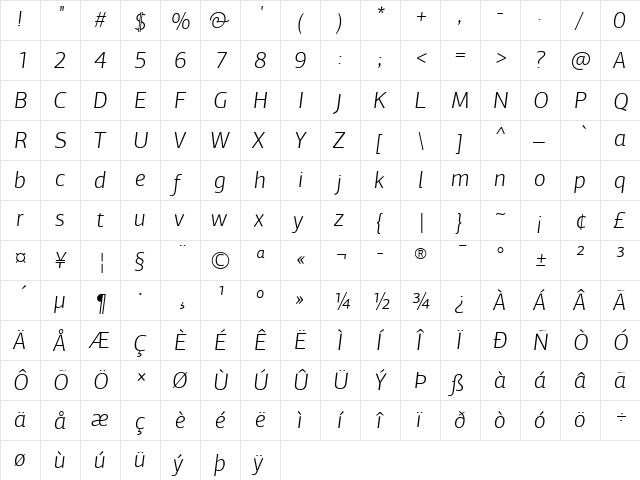
PF Agora Sans Pro Light Italic
Design Context for PF Agora Sans Pro Typeface
PF Agora Sans Pro is a composed and adaptable typeface that performs quietly and consistently across a wide range of design contexts. The slanted form adds forward momentum and visual energy. The delicate stroke weight brings airiness and refinement to layouts.
Pro Tip: Try PF Agora Sans Pro for annotation and caption copy alongside an upright companion — the contrast in angle creates a dynamic but ordered typographic system.